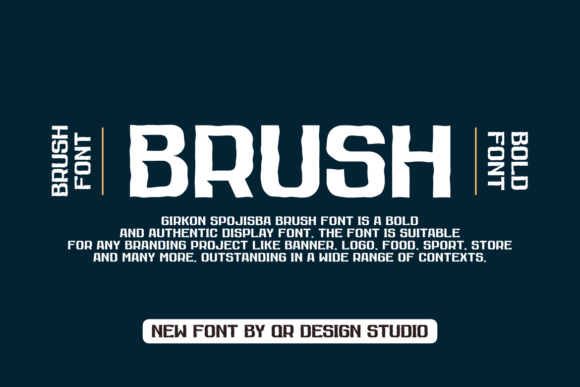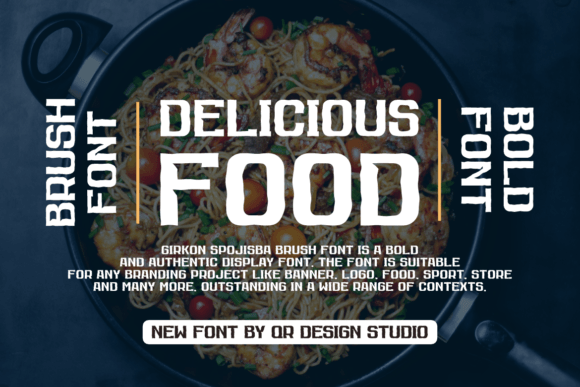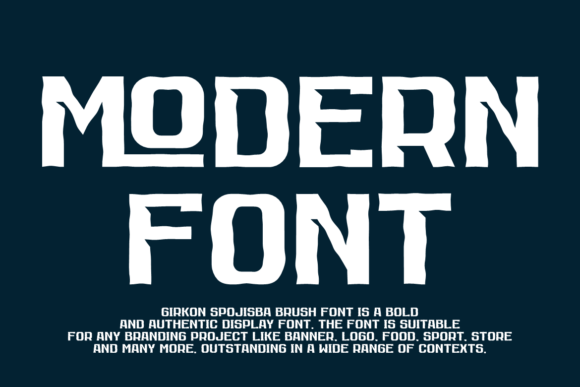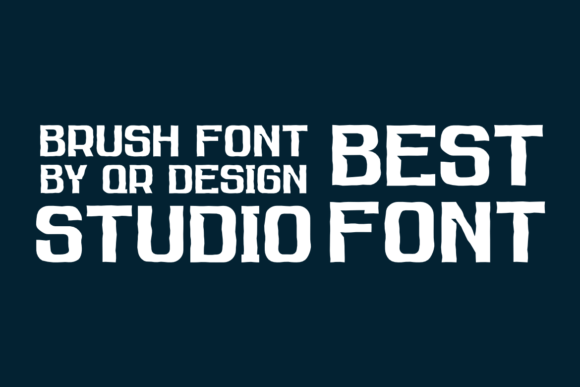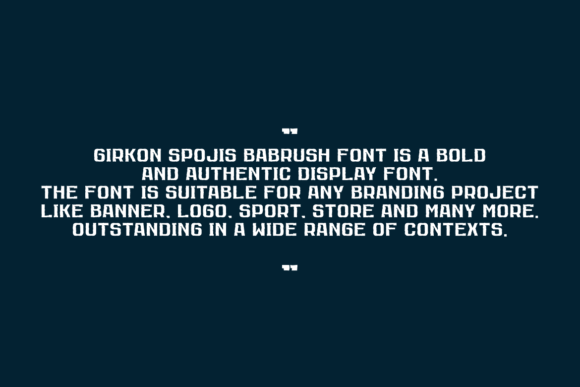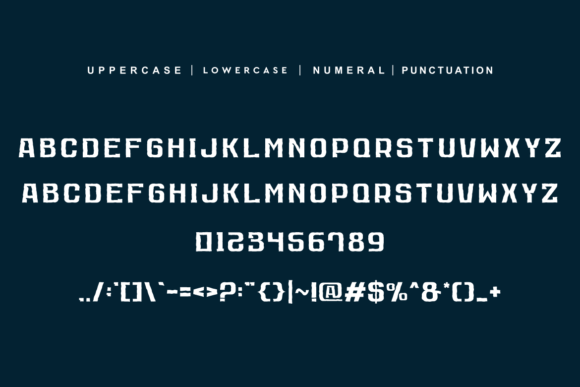
Girkon Spojisba Brush Font: Elevate Your Design with a Bold and Authentic Display Font
Are you a designer or crafter looking for a font that can add a touch of boldness and authenticity to your branding projects? Look no further than the Girkon Spojisba Brush Font. This stunning display font is perfect for creating eye-catching logos, packaging, and marketing materials that stand out from the crowd.
What Makes Girkon Spojisba Brush Font So Special?
Girkon Spojisba Brush Font is a unique and versatile font that is suitable for a wide range of applications, including food, sports, fashion, and more. Its bold and authentic style makes it perfect for creating logos, headlines, and titles that grab attention and leave a lasting impression.
One of the key features of Girkon Spojisba Brush Font is its brush-like texture, which gives it a distinctive and organic feel. This texture adds a level of depth and character to your designs, making them more engaging and memorable.
Key Features of Girkon Spojisba Brush Font
- Bold and Authentic Style: Girkon Spojisba Brush Font has a bold and authentic style that is perfect for creating eye-catching designs.
- Versatile and Flexible: This font is suitable for a wide range of applications, including logos, packaging, and marketing materials.
- Brush-Like Texture: The font’s brush-like texture adds a level of depth and character to your designs.
How to Use Girkon Spojisba Brush Font in Your Designs
Girkon Spojisba Brush Font is easy to use and can be incorporated into your designs in a variety of ways. Here are a few ideas to get you started:
- Logos and Branding: Use Girkon Spojisba Brush Font to create bold and eye-catching logos that reflect your brand’s personality.
- Packaging Design: Add a touch of personality to your packaging designs with Girkon Spojisba Brush Font.
- Marketing Materials: Use Girkon Spojisba Brush Font to create eye-catching headlines and titles for your marketing materials, such as brochures, flyers, and posters.
Why Designers and Crafters Love Girkon Spojisba Brush Font
Girkon Spojisba Brush Font has quickly become a favorite among designers and crafters, and for good reason. Here are a few reasons why:
- Unique and Authentic Style: Girkon Spojisba Brush Font has a unique and authentic style that sets it apart from other fonts.
- Easily Readable: Despite its bold style, Girkon Spojisba Brush Font is easily readable, making it perfect for use in a variety of contexts.
- Font Style: Bold, Display, Brush